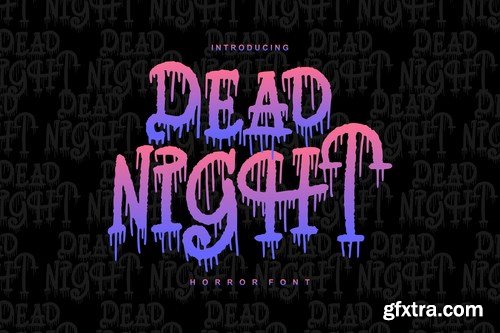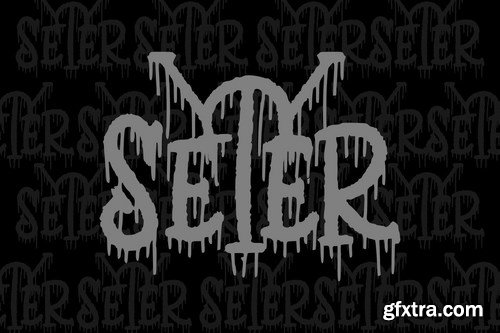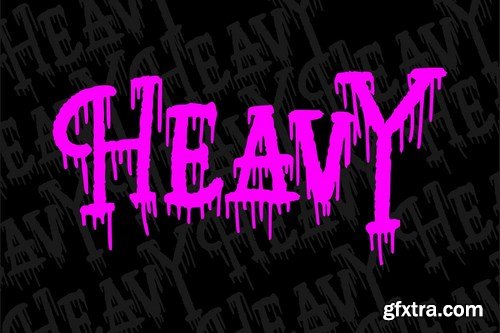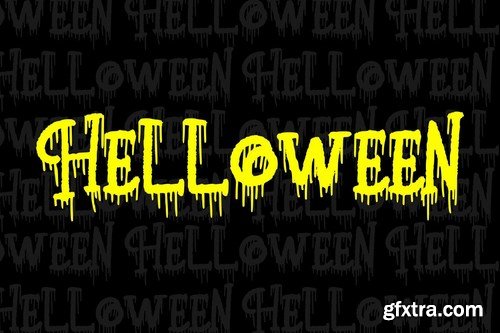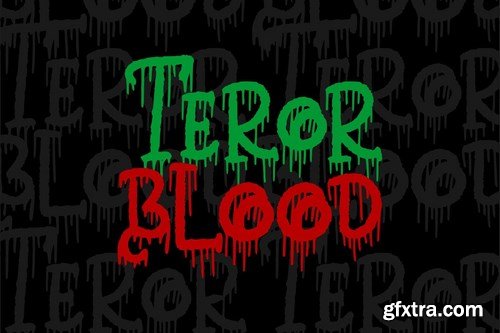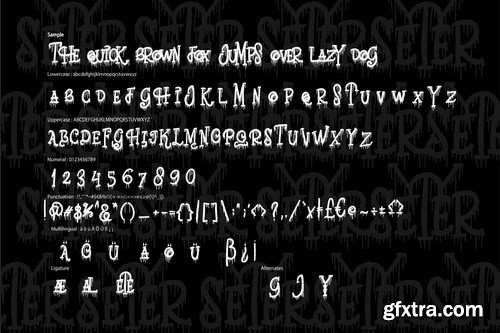
Dead Night | Horror Font with a calligraphy style, So beautiful on invitation like greeting cards, branding materials, business cards, quotes, posters, and more!